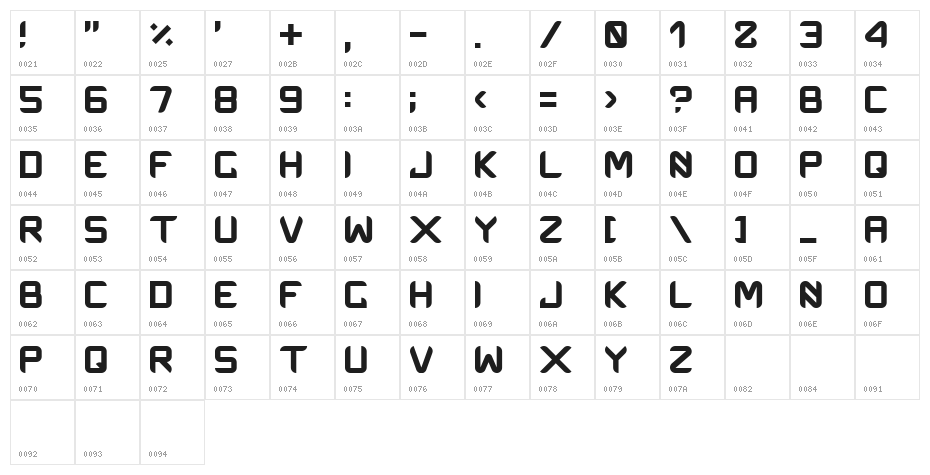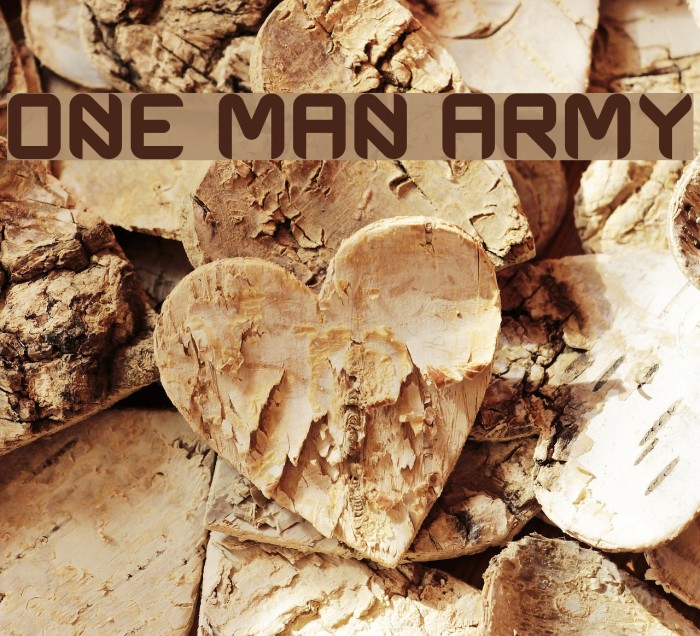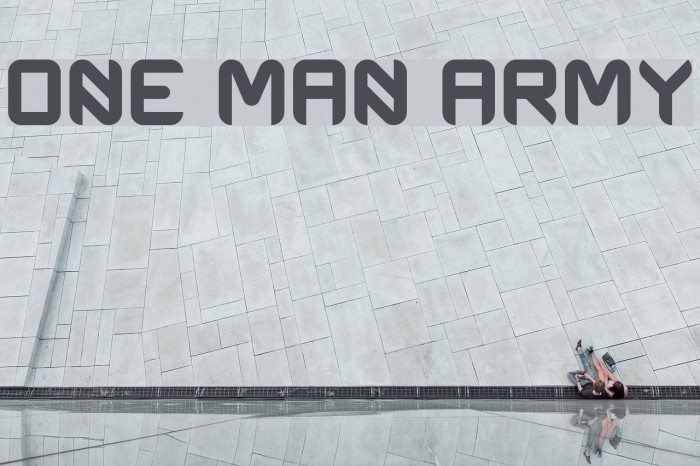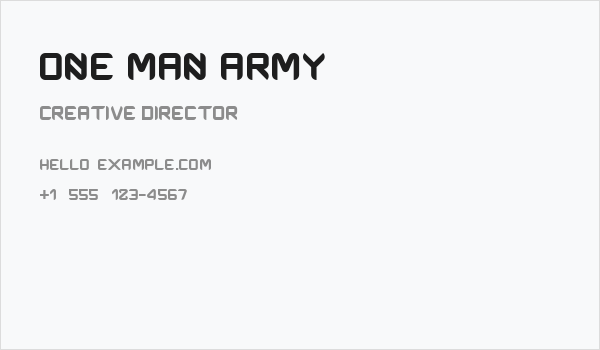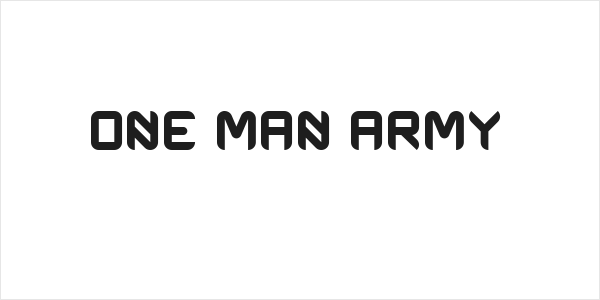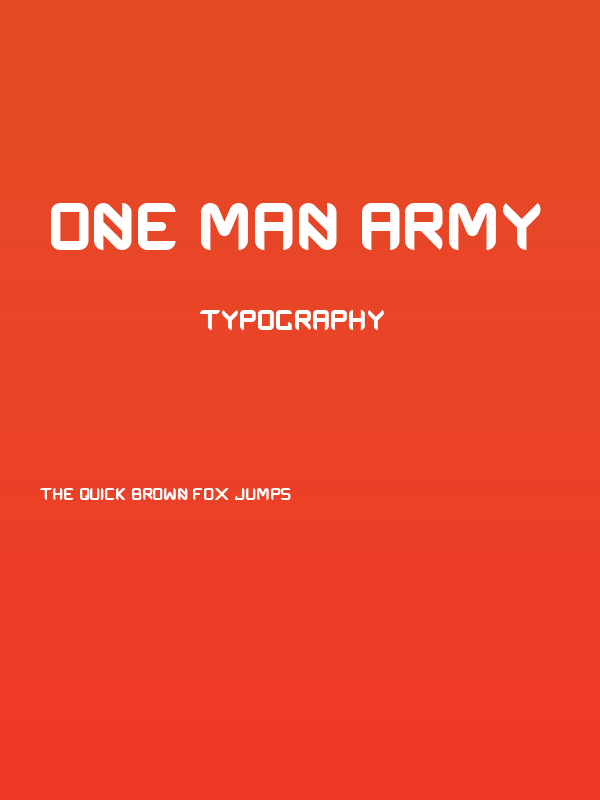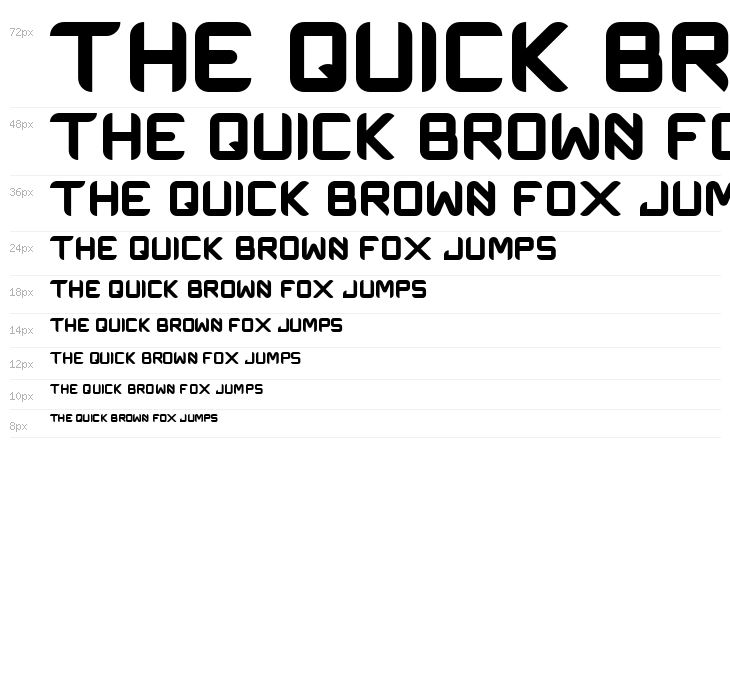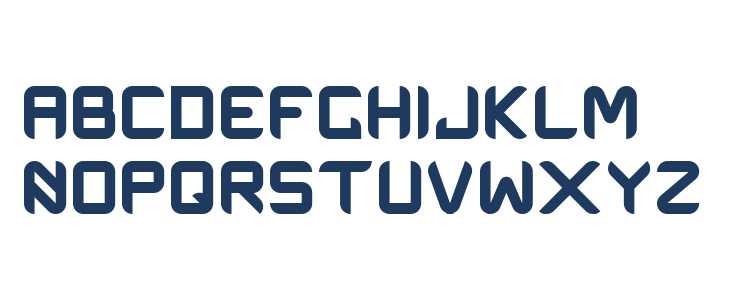
One Man Army Font
One Man Army Description
This font features a bold, geometric design with rounded edges, giving it a modern and futuristic appearance. The characters are uniform in width, contributing to a monospaced feel, although they are not strictly monospaced. The uppercase letters are prominent and well-defined, while the lowercase letters maintain the same stylistic approach, ensuring consistency across the typeface. The numerals are clear and easily distinguishable, matching the overall aesthetic. Special characters are designed with the same attention to detail, making them suitable for various applications. The font's unique style makes it ideal for projects that require a contemporary and tech-savvy look.
Use CaseHeadlines, Logos, Digital interfaces
Proposed ProjectsIdeal for tech branding, video game interfaces, futuristic posters, and digital media.